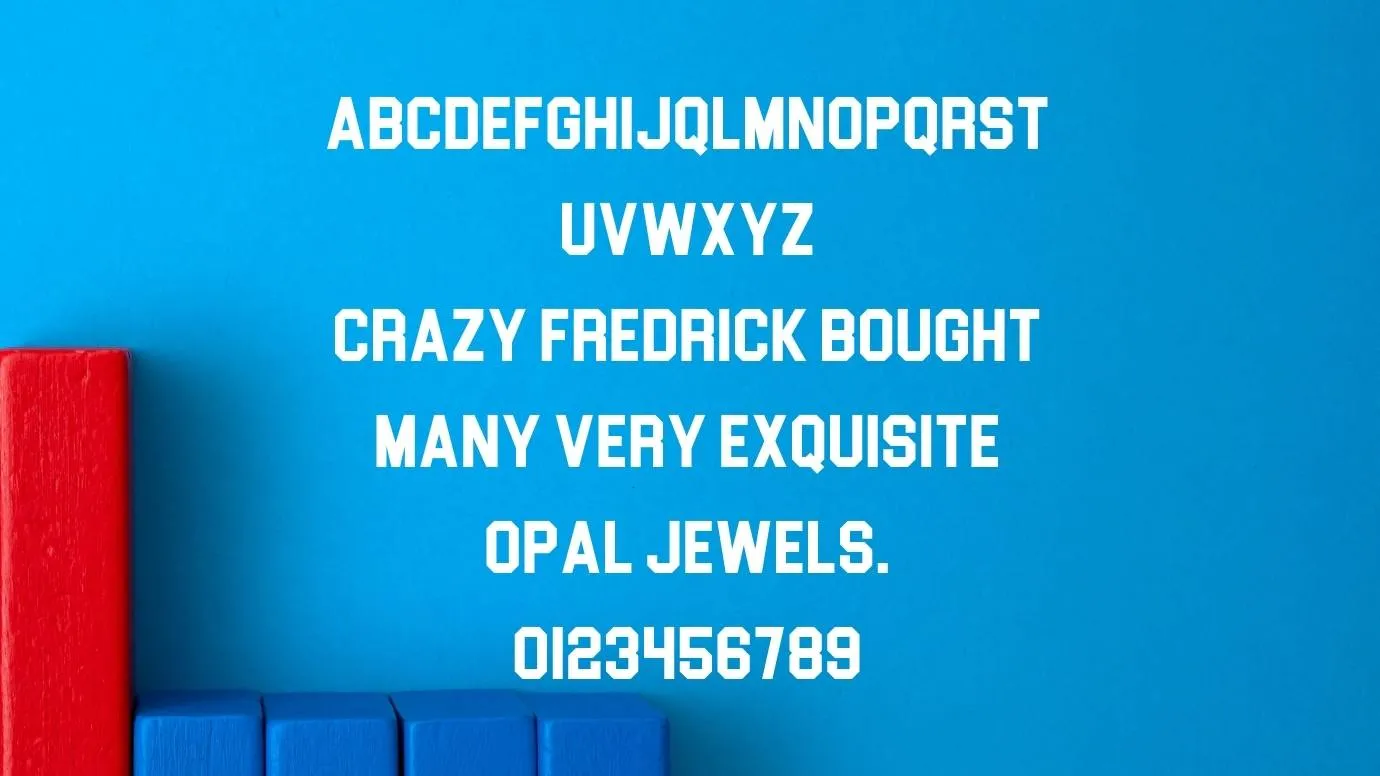
Blockletter Font is a group member of the Sans Serif family, which has a clean, basic, and based type of style. which has clean smooth looks and makes it easy for all types of readers to read easily and continuously from a distance as well. this typeface is published in 2016 with a regular style, which is single style and a multiple set of characters and supports.
This is one of the outstanding and simple designs of the typeface which attracts many companies and designers, and that’s the big reason behind its popularity, Moreover, the subfamily of this typeface is regular, and the unique identifier of this texture is blockletter version 1.00.
The initially released version of this typeface is 1.00 which is released on 22 June 2016. This typeface is very solid and smooth in its style which may be good for a video logo, this is amazing on the Hollywood sign.
This typeface may also use in military lettering, this is a perfect match for signboards, this is a good choice for homeware designs, it makes stunning to your products packing products.
This is an amazing texture for shop and store names. this makes it lovely to use on covers, and background images. this is outstanding for books title and newspaper ads.
Designer of Blockletter Font
This strong and smooth style of typeface is designed by SharkShock, one of the famous designers.
This font is a single style. this regular style includes glyphs, uppercase alphabets, lowercase alphabets, punctuations, numbers, symbols, and a large number of language supports.
It can support many languages.
What is Blockletter the font?
This typeface is a group member of the Sans Serif family, which has a clean, basic, and based type of style.
Where do I use Blockletter font?
This typeface is used for homeware, posters, logo design, T-shirts, invitation cards, covers, signboards, and so on.
What font is closest to Blockletter?
There is a lot of typefaces that are similar to this font but the most similar font is the Guardians the galaxy 2 font.